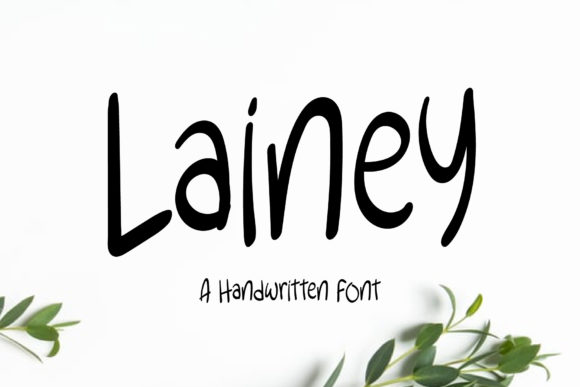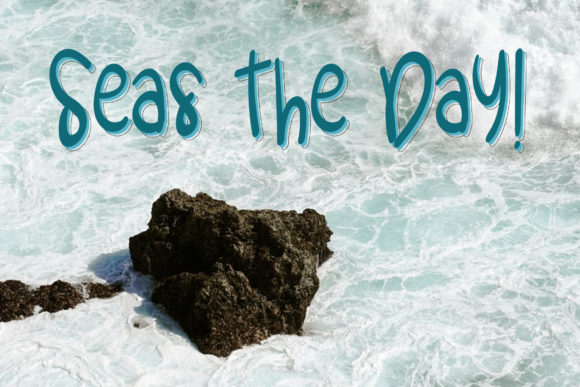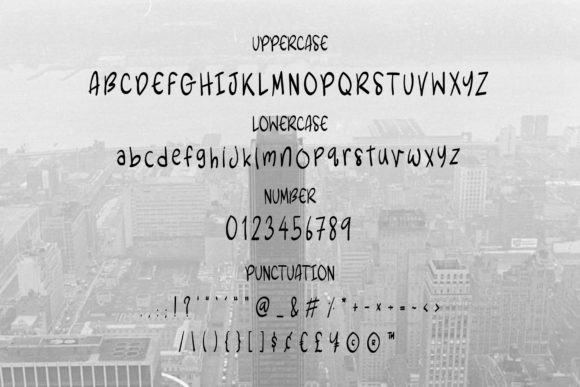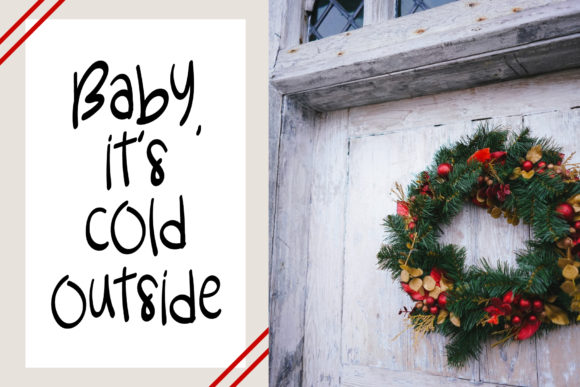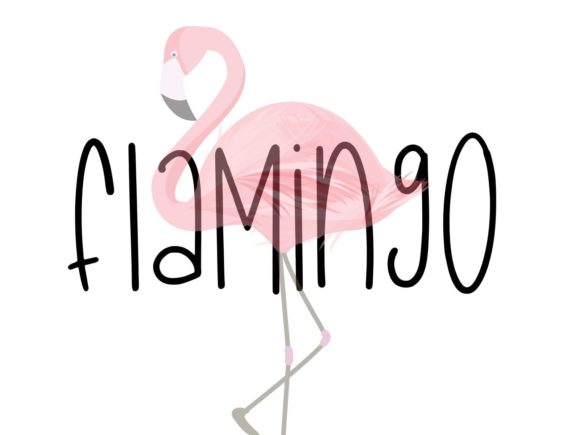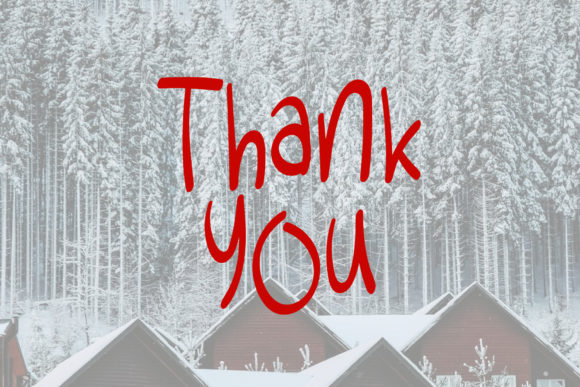
Lainey Font
About Lainey Font
Lainey is a cute and quirky handwritten font. No matter the topic, this font will be an incredibly asset to your fonts’ library, as it has the potential to elevate any creation.